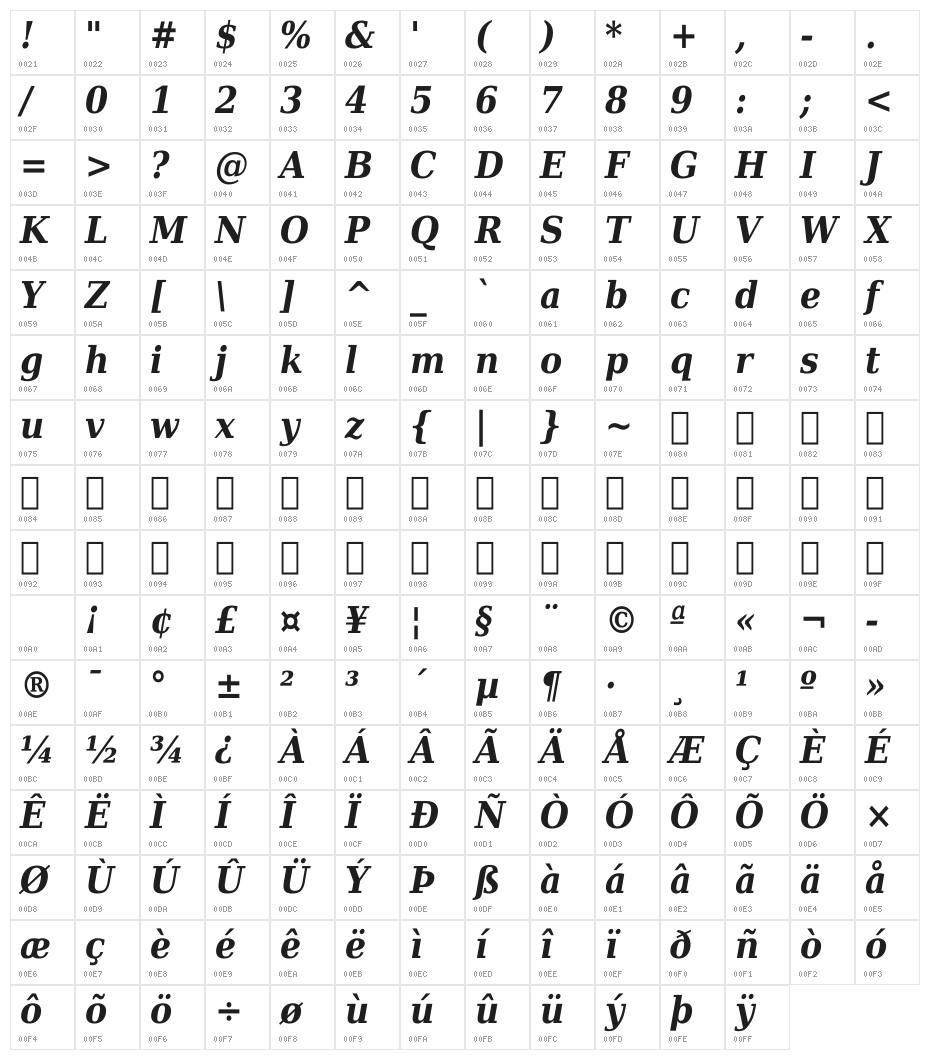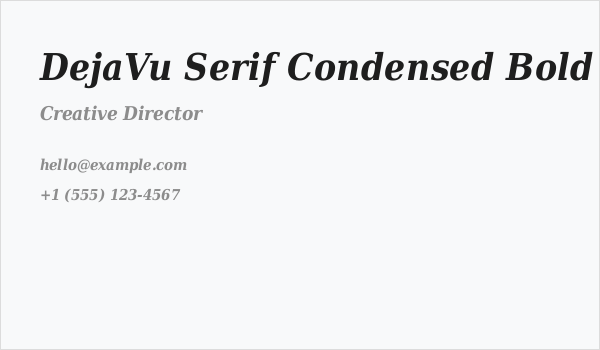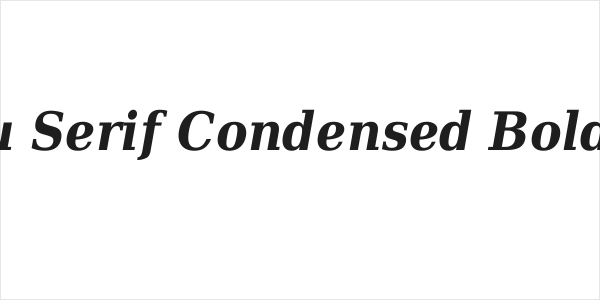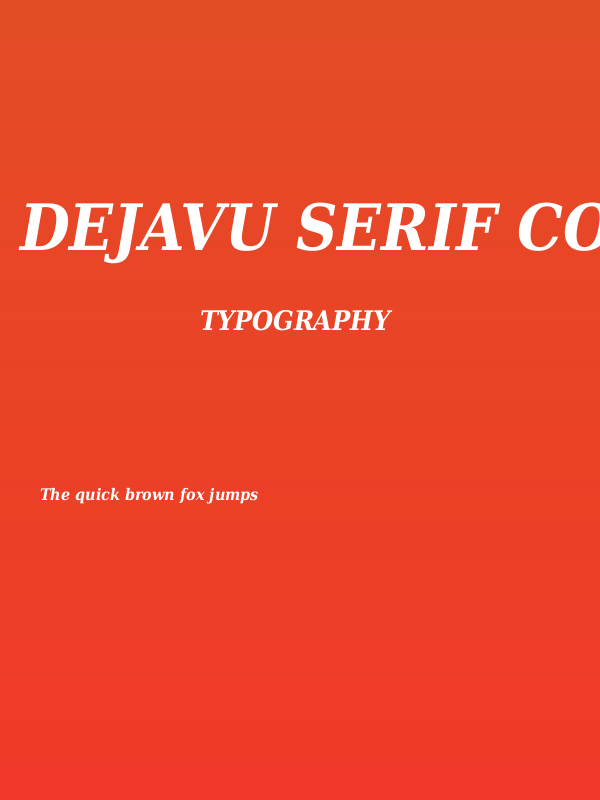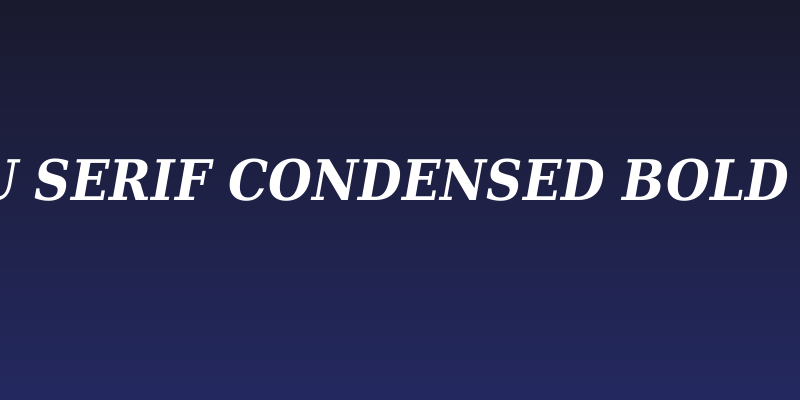
DejaVu Serif Condensed Bold Italic Font
DejaVu Serif Condensed Bold Italic Description
This font features a classic serif design with a condensed structure, offering a bold and italicized appearance. The letterforms are elegantly slanted, providing a dynamic and sophisticated look. The serifs are pronounced, adding a traditional touch, while the condensed width allows for efficient use of space. The bold weight ensures strong visibility and impact, making it suitable for attention-grabbing headlines. The italic style adds a sense of movement and fluidity, enhancing its visual appeal. The character spacing is moderately tight, contributing to its compact and cohesive appearance. The font's high contrast in stroke thickness further emphasizes its boldness and readability.
| Proposed Projects | Ideal for editorial design, book covers, branding, and advertising where a classic yet impactful style is desired. |